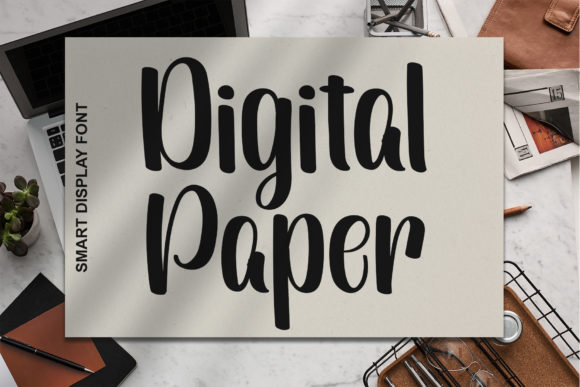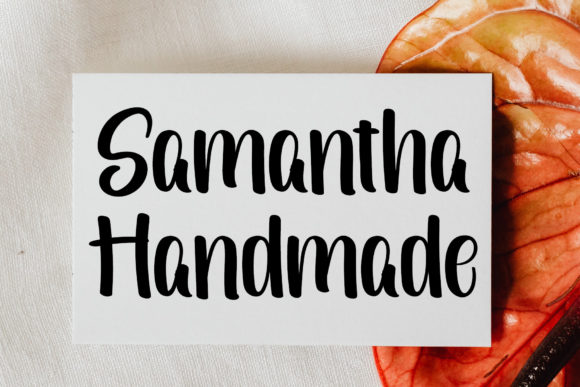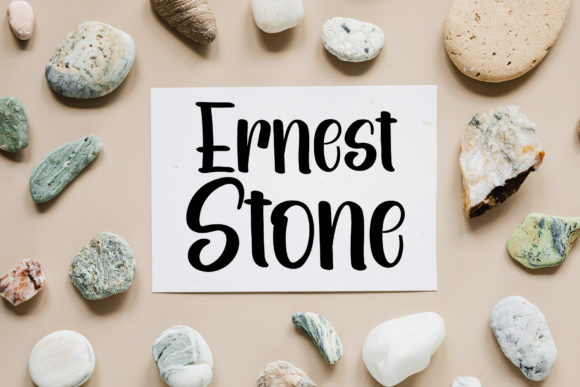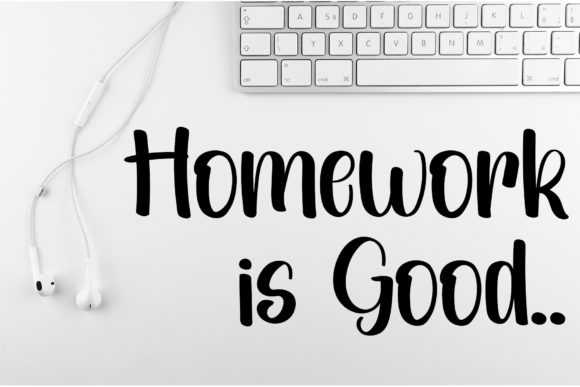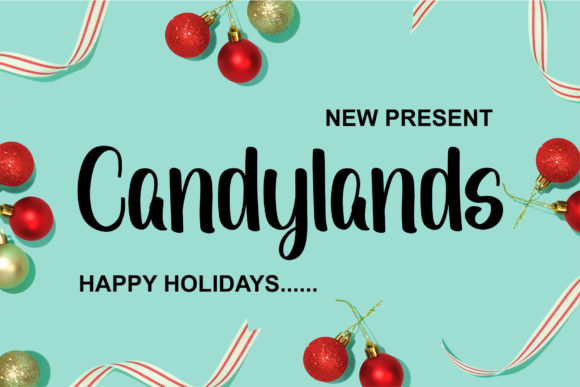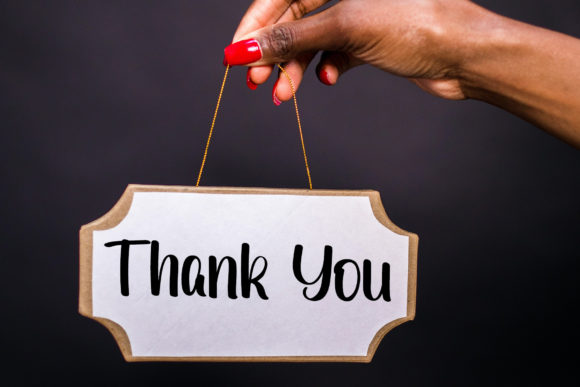
Digital Paper Font
Digital Paper is a simple, friendly and cute handwritten font. This adaptable font will look great on a variety of design ideas. It will add a fun and adaptable touch to each of your projects!